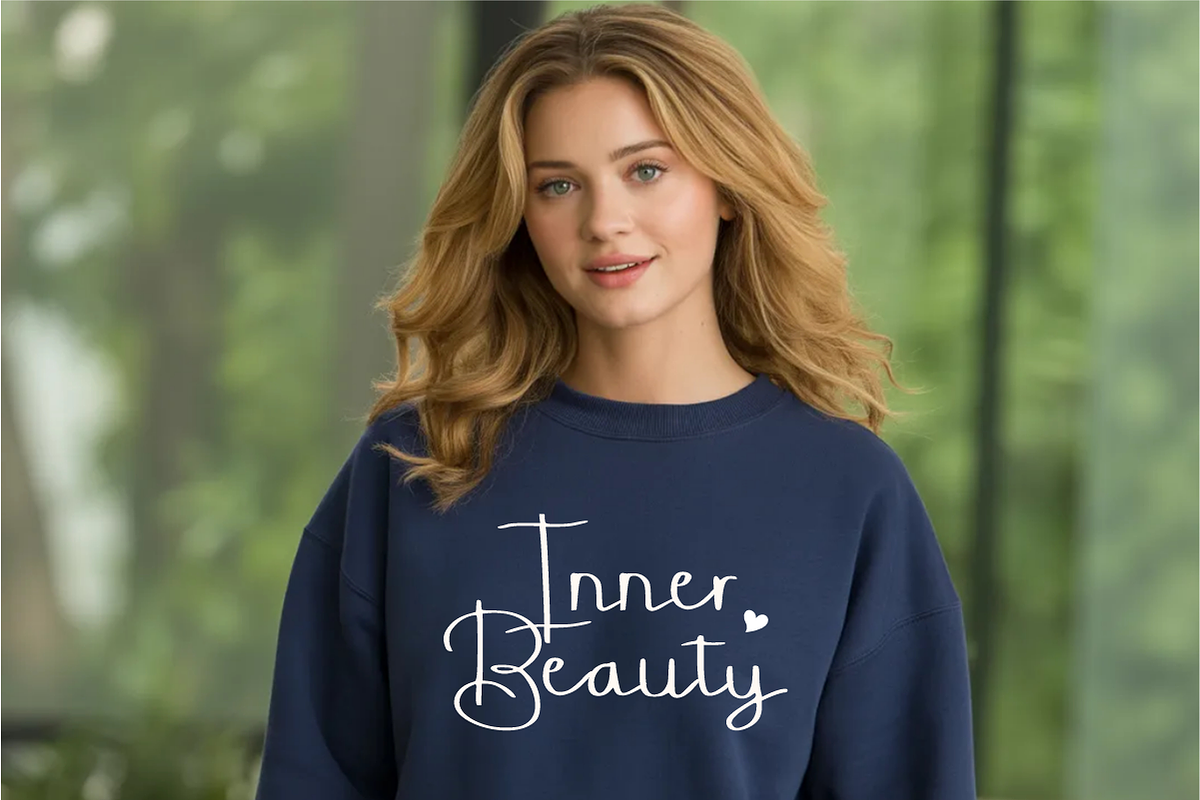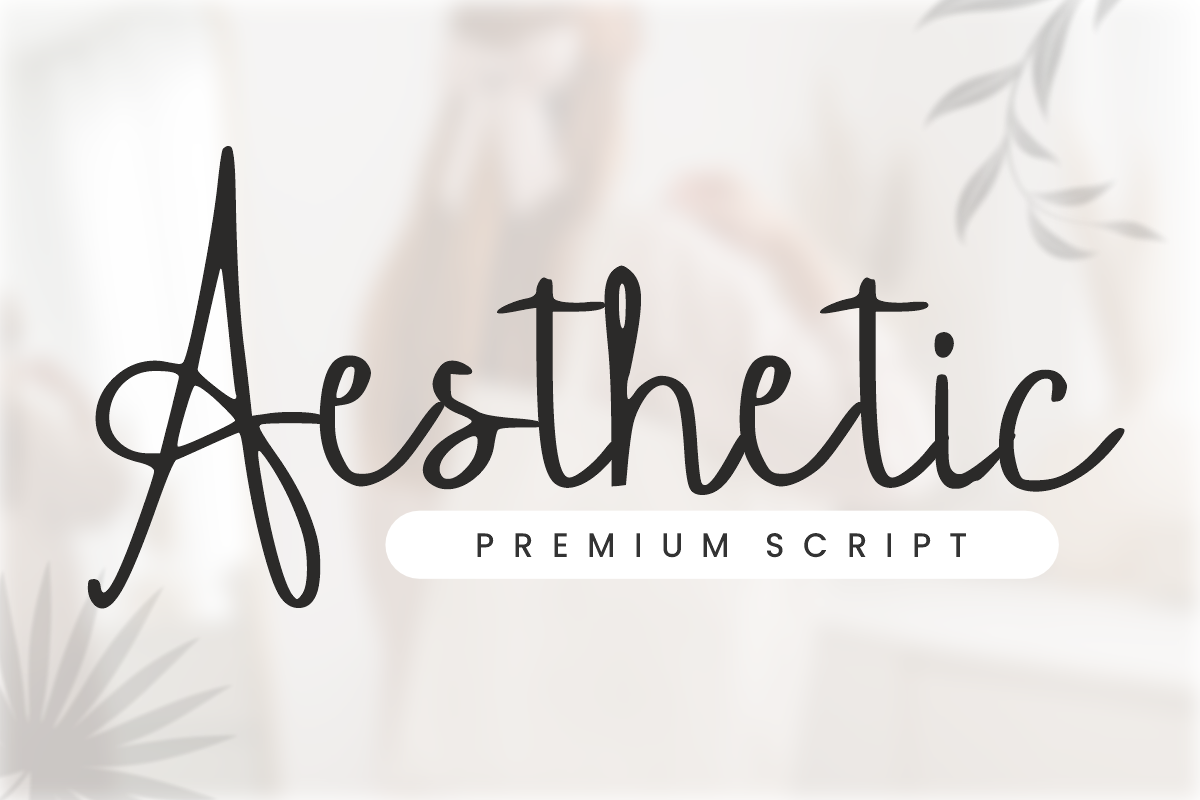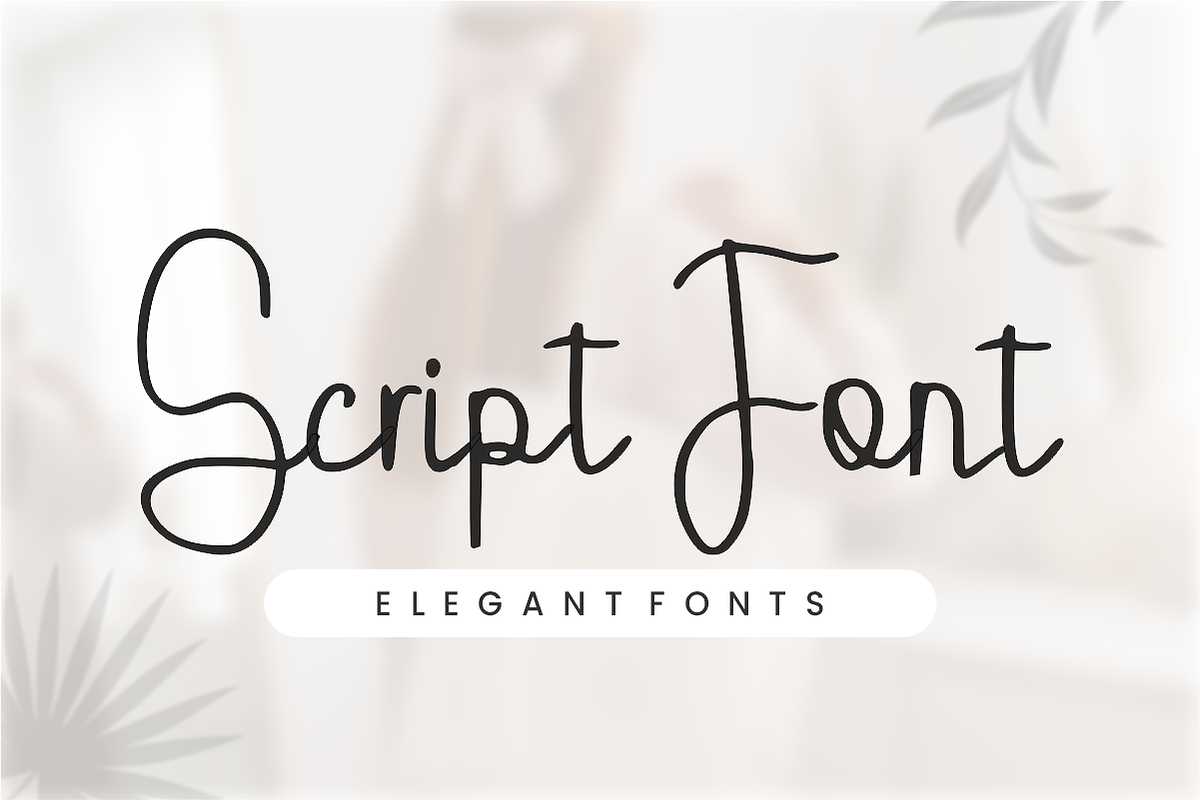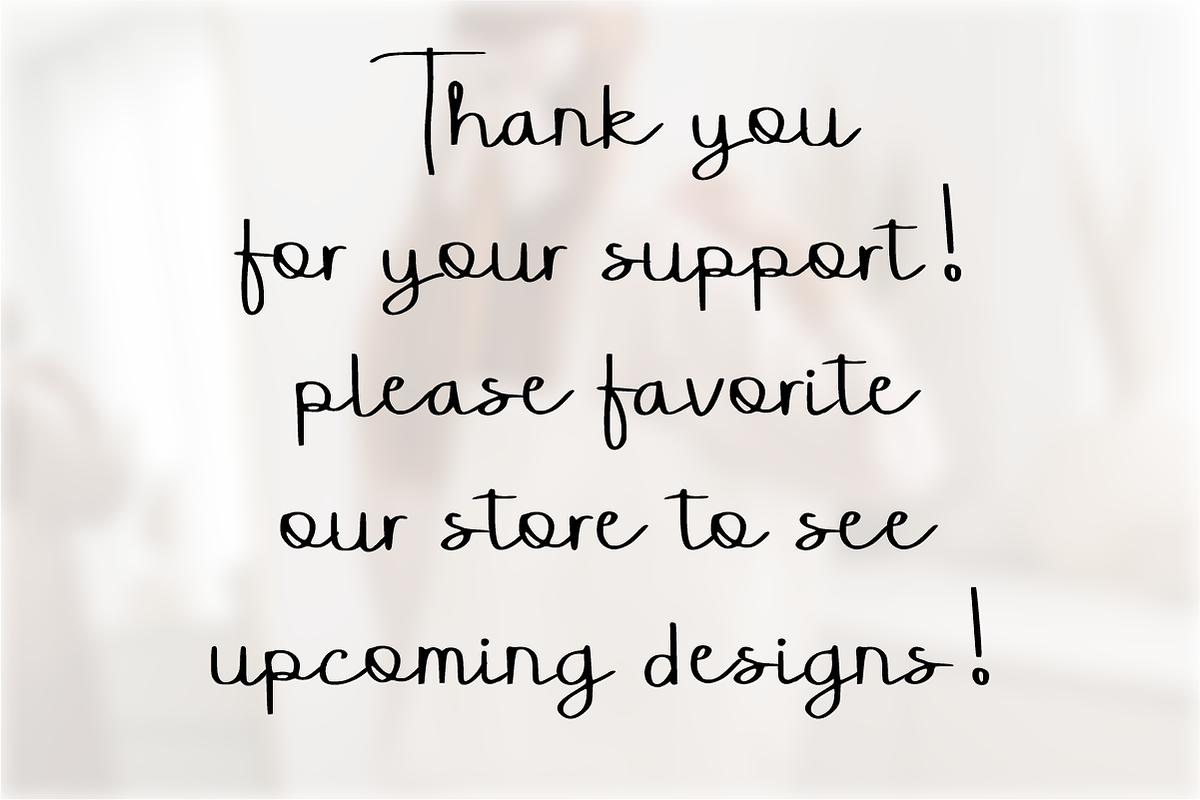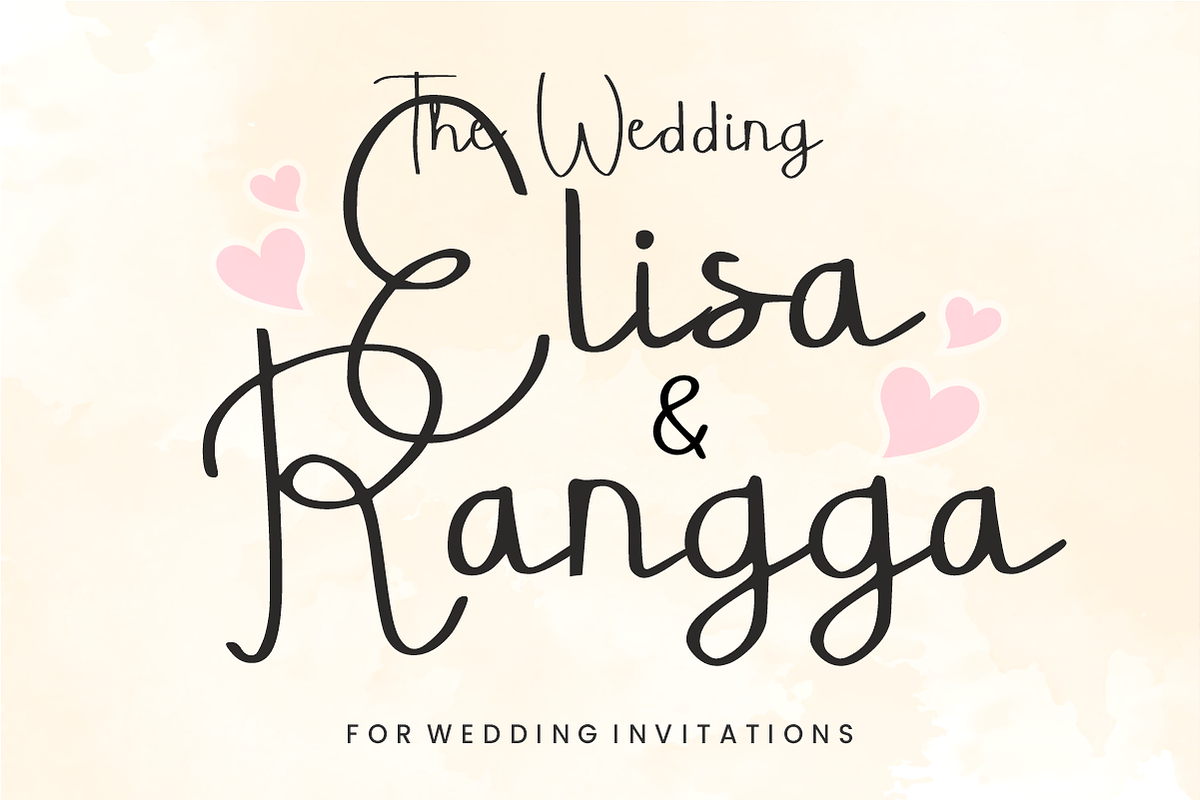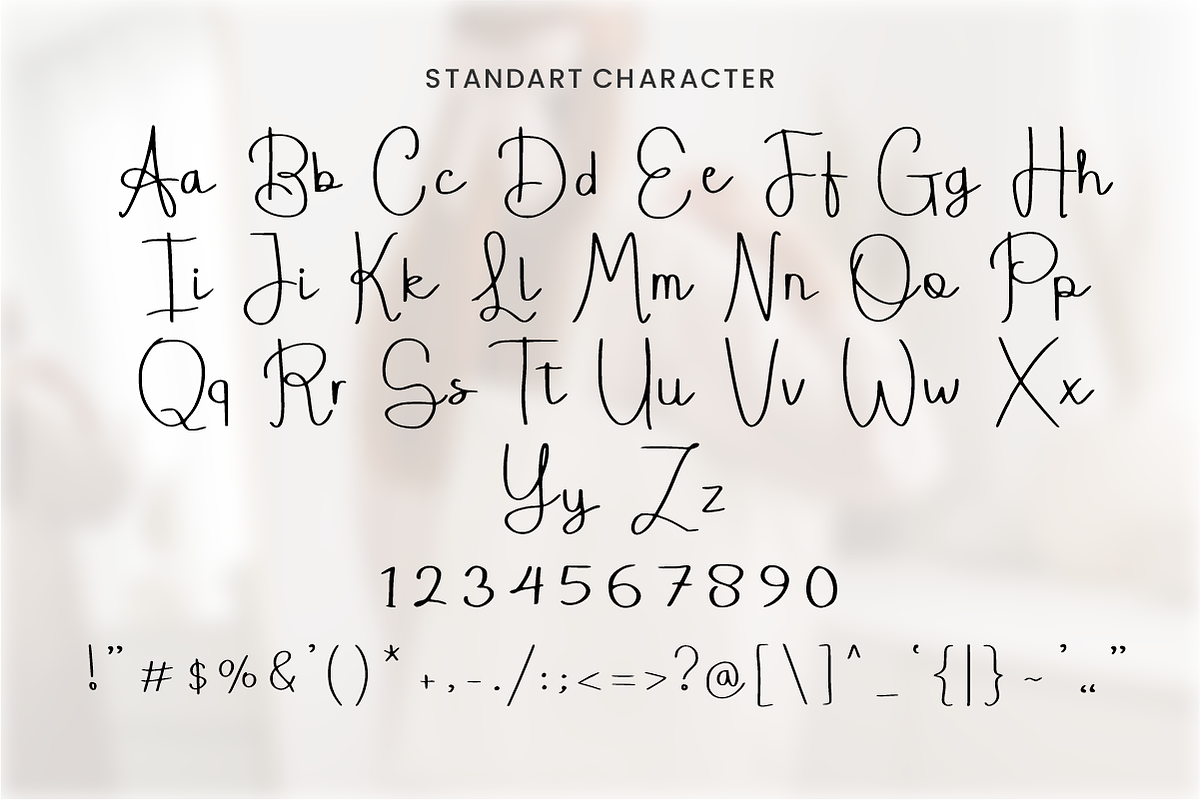
Aname Handwriting – Monoline Script
Aname Handwriting – Elegant & Minimalist Monoline Script ✨🖋️
Add a touch of effortless sophistication and natural charm to your creative projects.
Aname Handwriting is a beautifully balanced monoline script font that captures the essence of modern, fluid penmanship. With its delicate loops and clean, consistent strokes, this font offers a minimalist aesthetic that is both airy and intimate. It is designed for those who want their text to feel authentic and hand-crafted without sacrificing professional readability. Whether you are building a boutique brand or designing a heartfelt invitation, Aname Handwriting provides the perfect blend of elegance and simplicity.
🌟 Why Aname Handwriting is a Must-Have:
Minimalist & Modern: The monoline weight ensures a clean look that works perfectly on both digital screens and high-quality print.
Natural Flowing Rhythm: Carefully designed connections between letters create a seamless, authentic handwritten feel.
Highly Versatile: Its understated elegance makes it suitable for a wide range of styles—from luxury branding to casual lifestyle blogs.
Full Character Set: Elegant Uppercase & Lowercase letters.
Numbers & Symbols: Complete numerals (0-9) and essential simple punctuation.